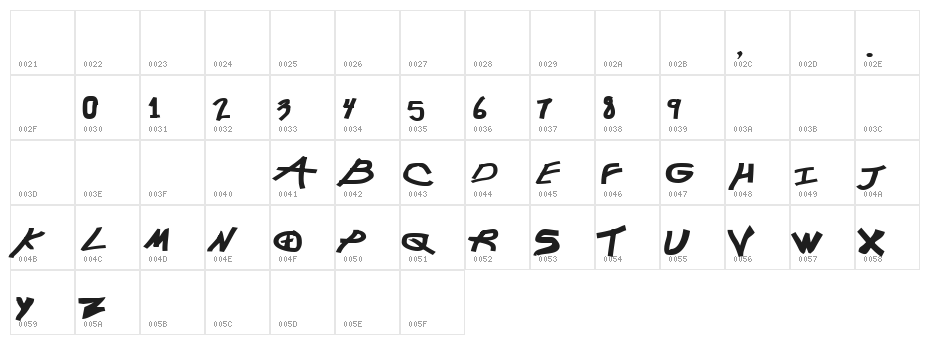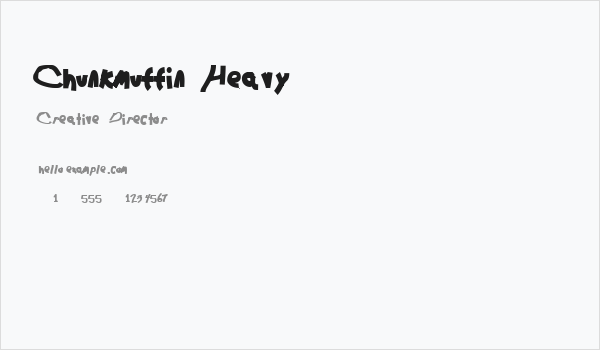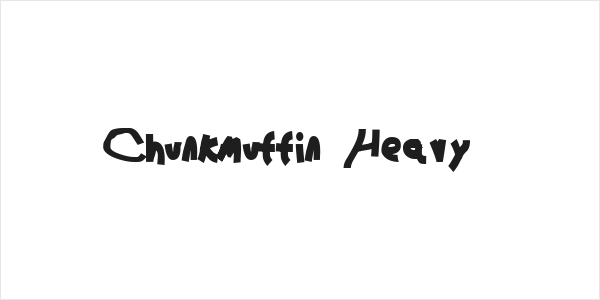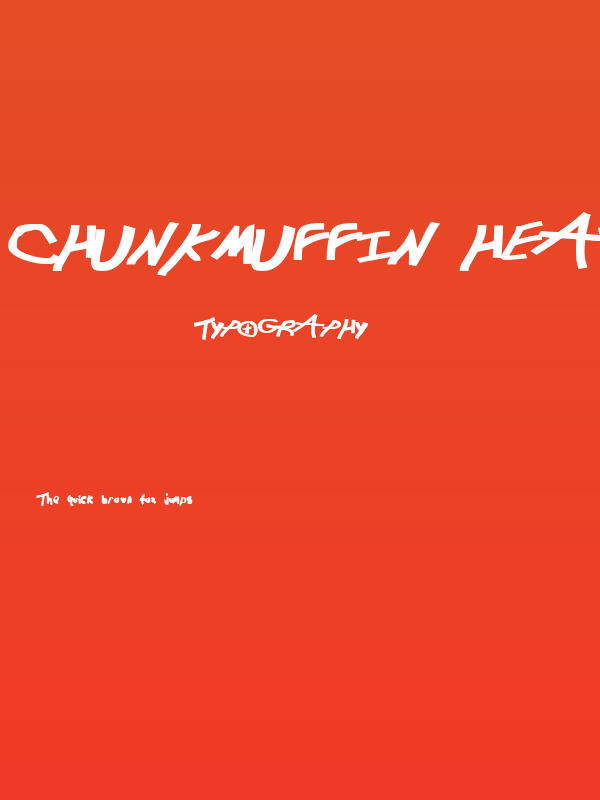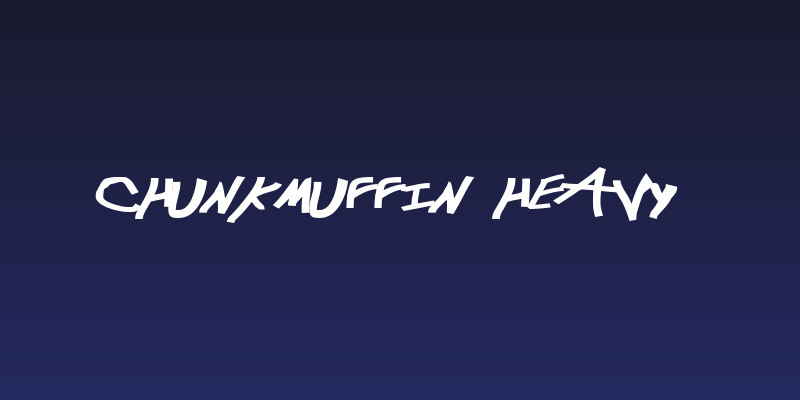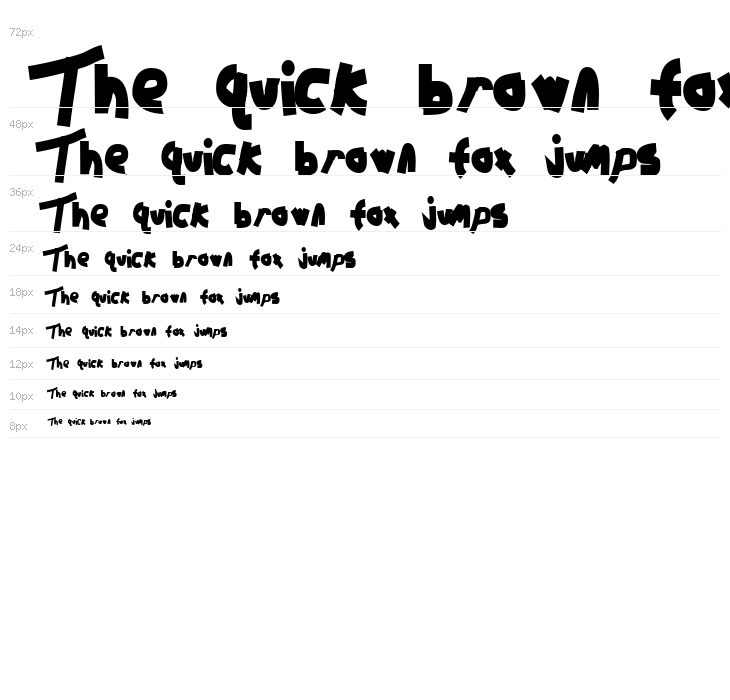
Chunkmuffin Heavy Font
Chunkmuffin Heavy Description
This font exhibits a bold and dynamic style with a playful and energetic appearance. The characters are heavily stylized with a chunky, irregular form that gives them a unique and eye-catching look. The uppercase letters have a strong presence, while the lowercase letters maintain a consistent weight and style. The numbers are equally bold, ensuring they stand out in any design. The special characters retain the same playful and bold characteristics, making them suitable for creative and informal projects. Overall, the font's heavy weight and distinctive style make it ideal for attention-grabbing designs.
| Overall Style | Playful, Energetic |
| Proposed Projects | Ideal for posters, logos, children's books, and playful branding. |